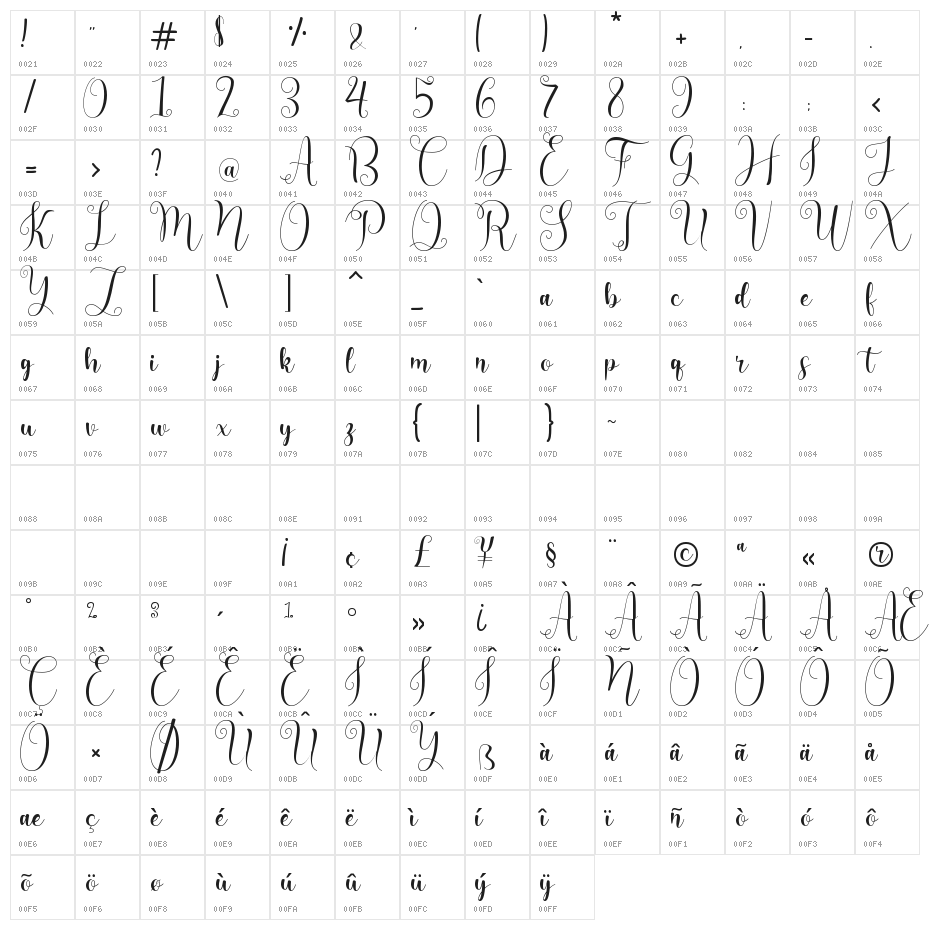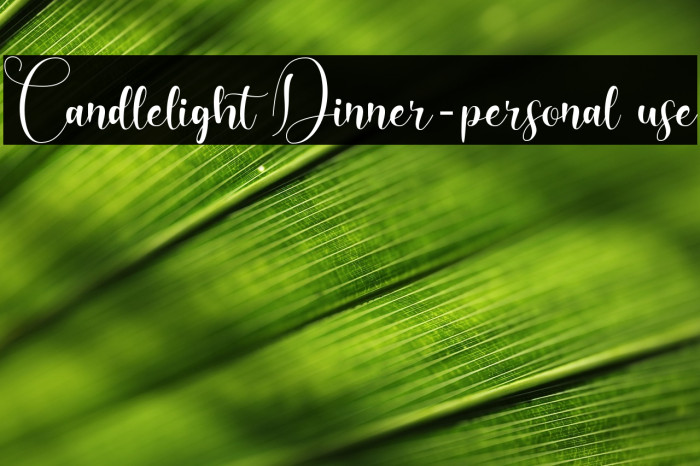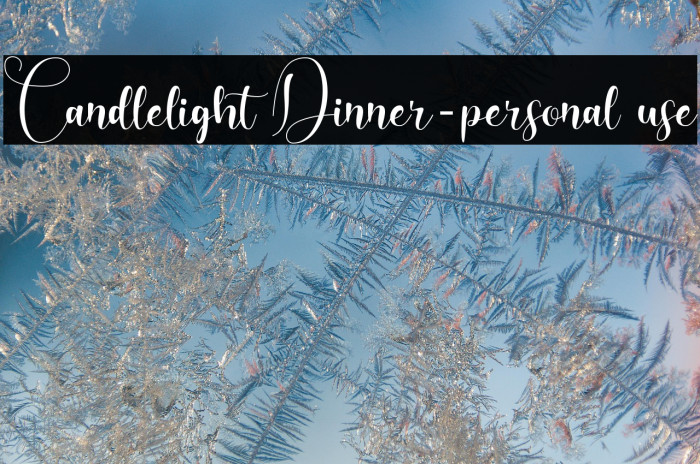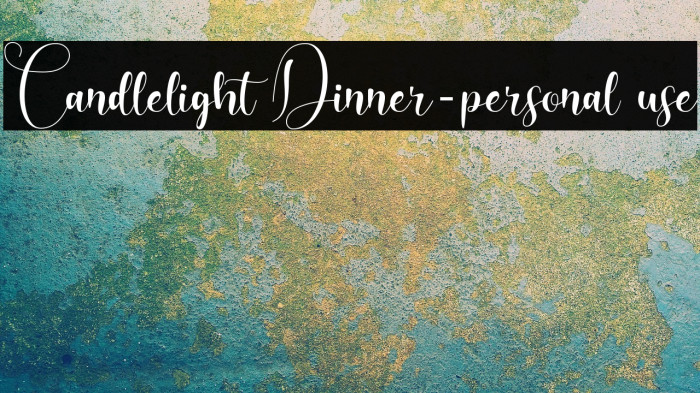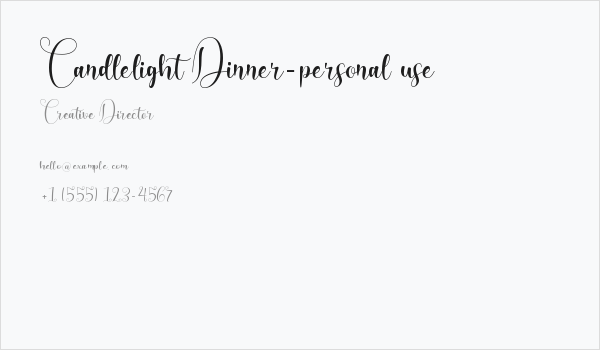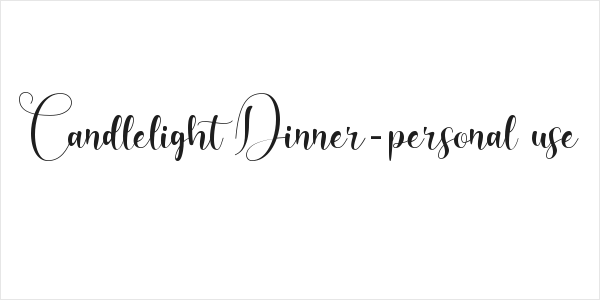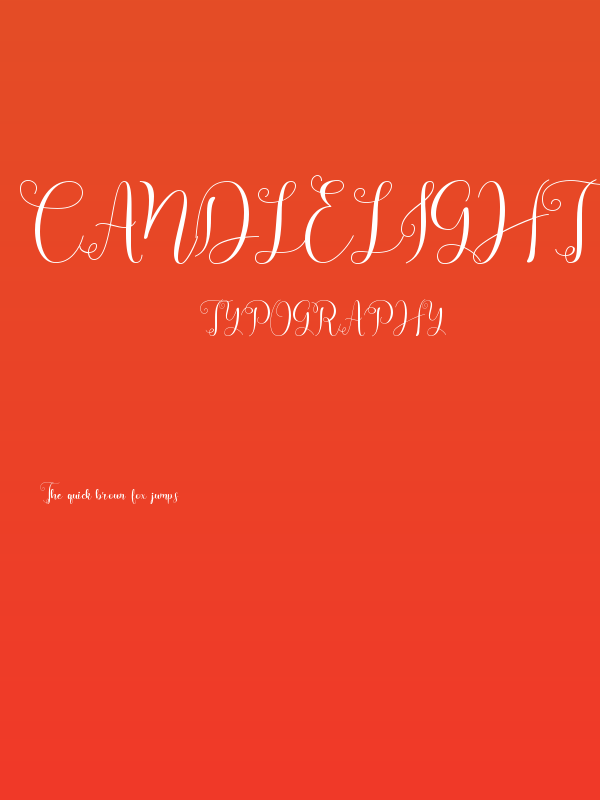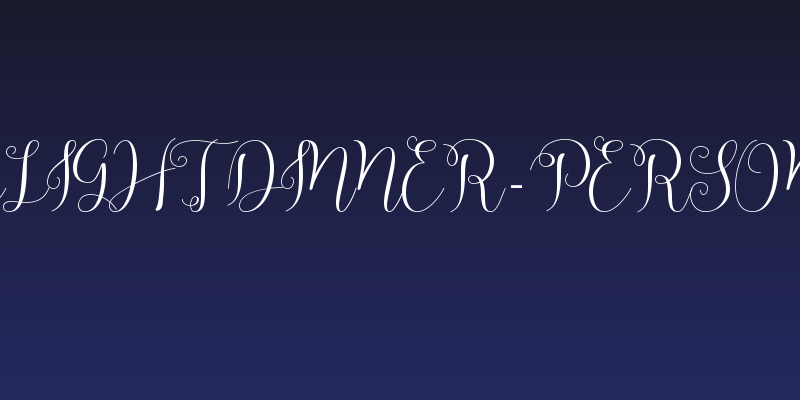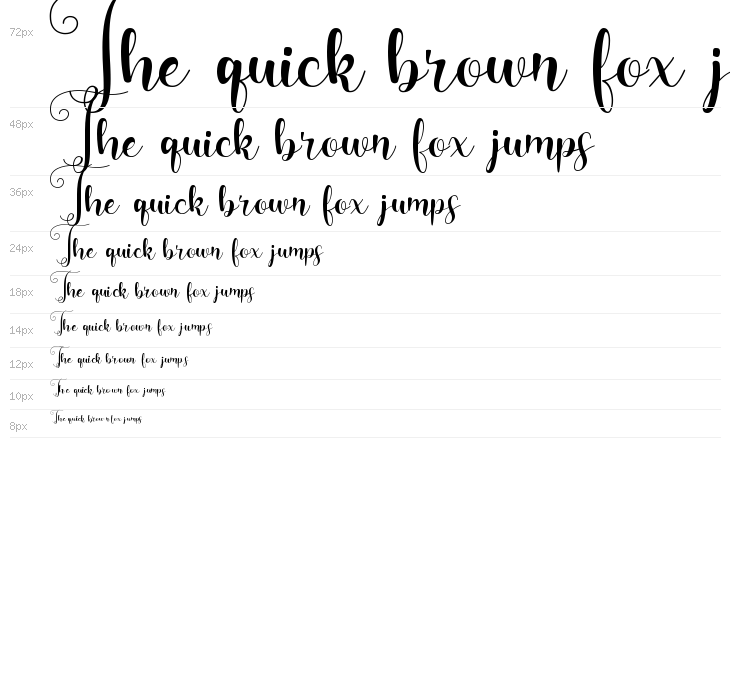
Candlelight Dinner-personal use Font
Candlelight Dinner-personal use Description
This elegant script font features a sophisticated and flowing design, characterized by its intricate swirls and loops. The uppercase letters are particularly ornate, with elaborate flourishes that add a touch of luxury and refinement. The lowercase letters maintain a smooth and connected style, offering a harmonious balance between readability and decorative appeal. The numerals and special characters are equally stylish, incorporating the same graceful curves and embellishments. This font exudes a sense of romance and charm, making it ideal for projects that require a touch of elegance and sophistication.
| Proposed Projects | Wedding invitations, luxury branding, greeting cards, and elegant packaging. |